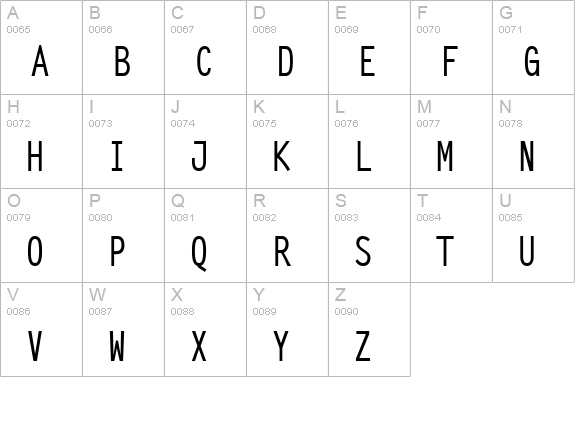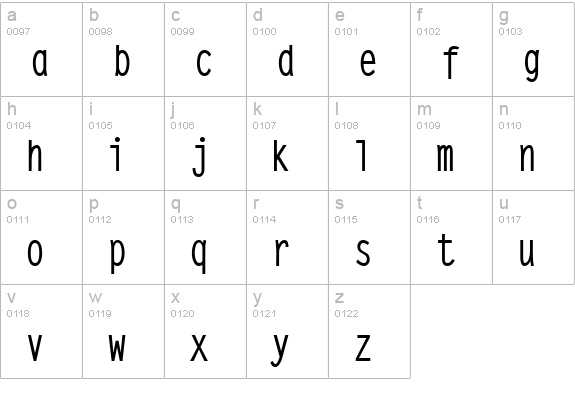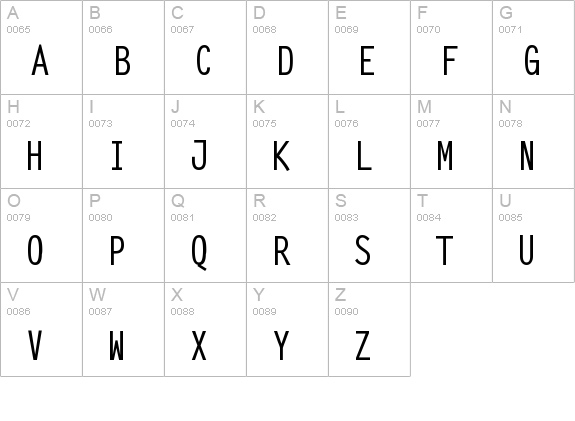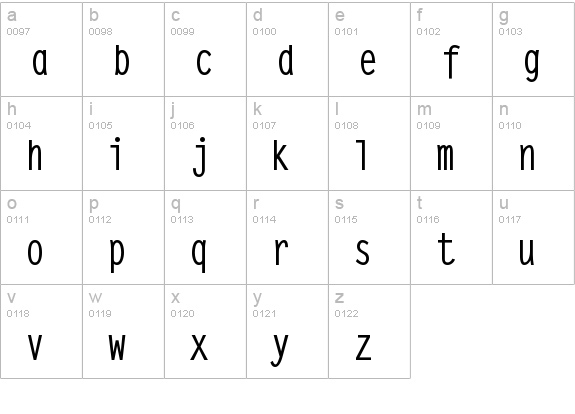
SteepTypewriterMedium Font Details
SteepTypewriterMedium is a versatile and eye-catching font that combines the elegance of a typewriter with a modern twist. Its medium weight strikes the perfect balance between legibility and style, making it suitable for a wide range of projects. With its clean lines and distinct character shapes, SteepTypewriterMedium adds a touch of sophistication to any design. Whether you're creating a vintage-inspired poster, a sleek magazine layout, or a professional business presentation, this font will surely make a lasting impression. What sets SteepTypewriterMedium apart from other fonts is that it is completely free to download. You heard that right - absolutely free! Thanks to FontsMarket.com, you can easily access and enjoy this font without having to spend a penny. Not only does SteepTypewriterMedium offer exceptional quality and style, but it also provides convenience and accessibility. By being freely available to download at FontsMarket.com, you can effortlessly incorporate this font into your designs and projects, without any hassle. So why wait? Discover the endless possibilities that SteepTypewriterMedium has to offer. Embrace its timeless elegance and unique charm to elevate your creative endeavors. Download it now, for free, at FontsMarket.com!